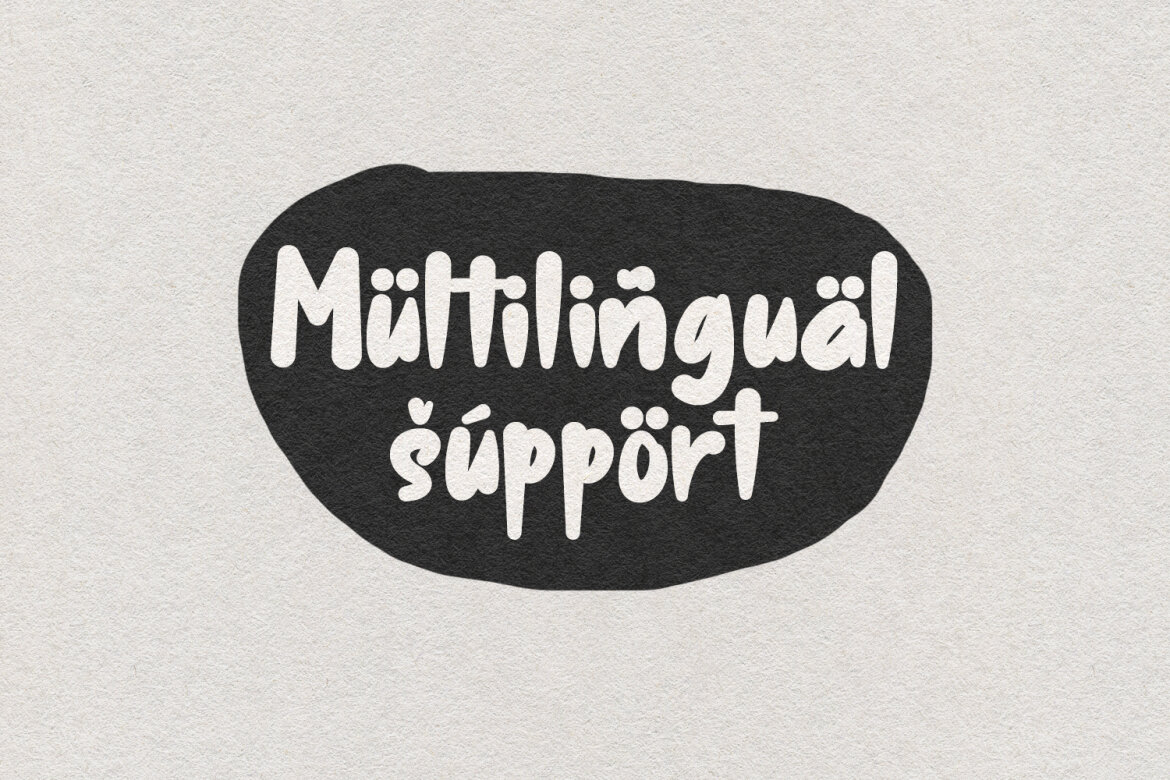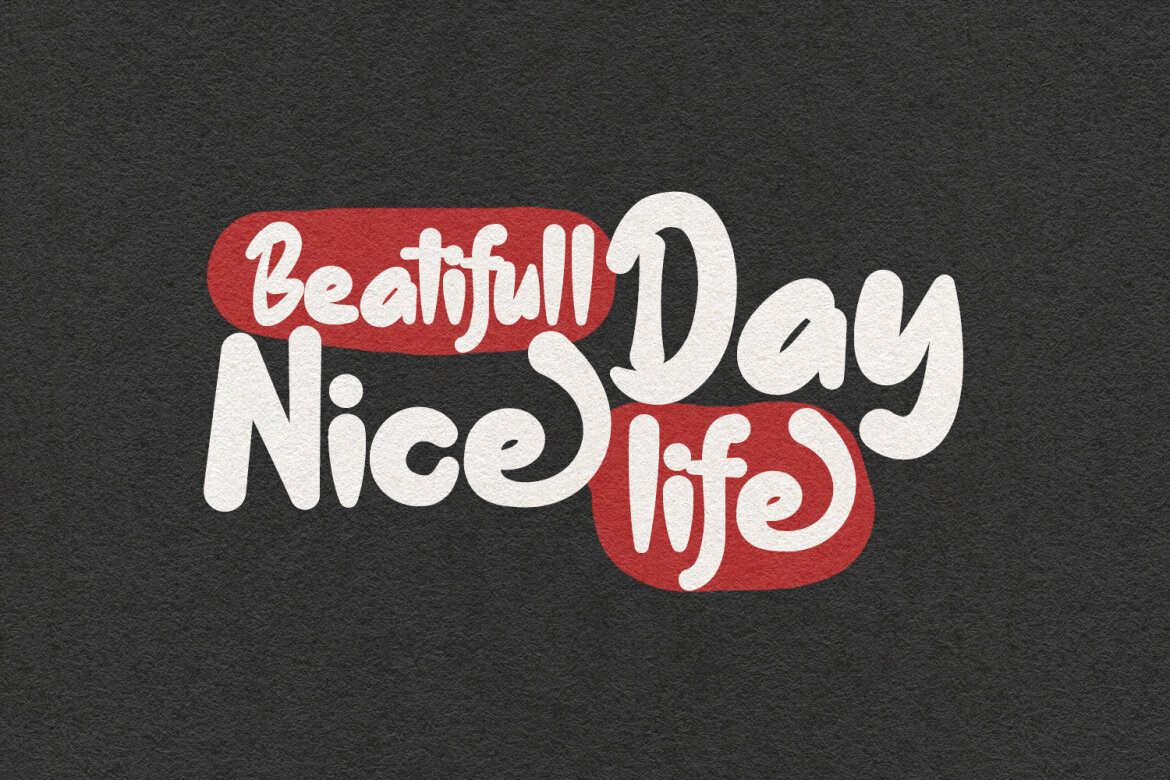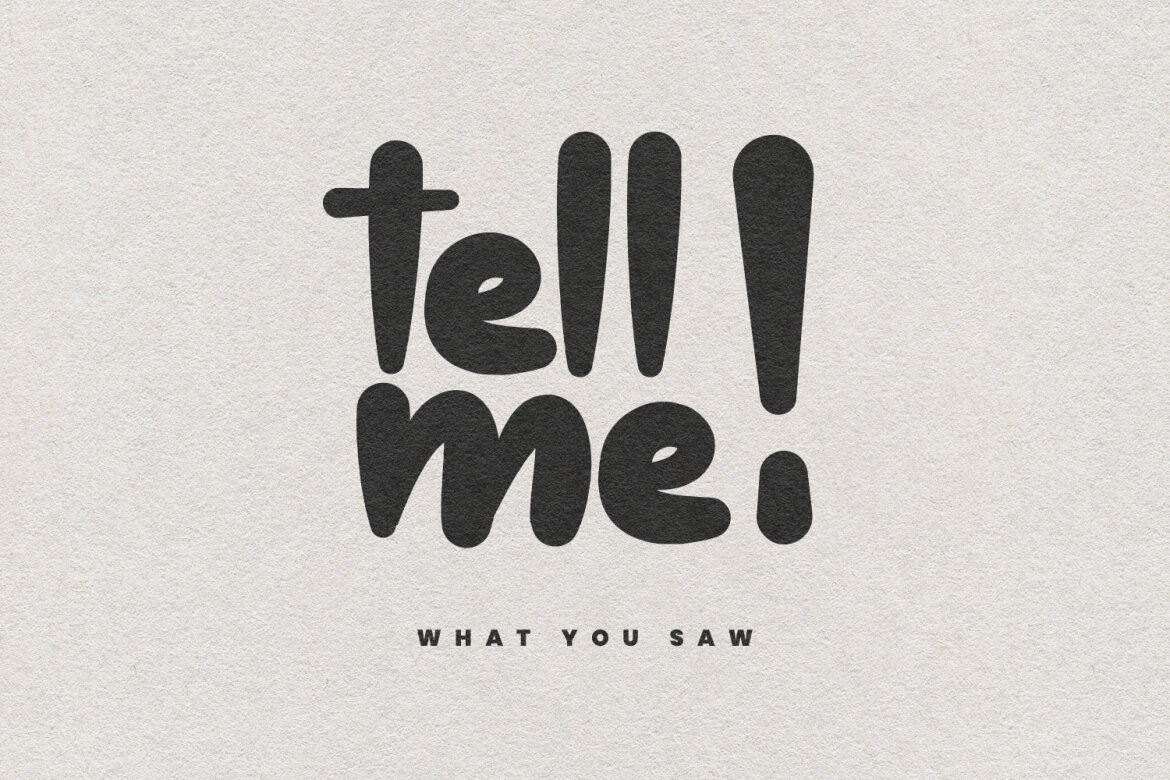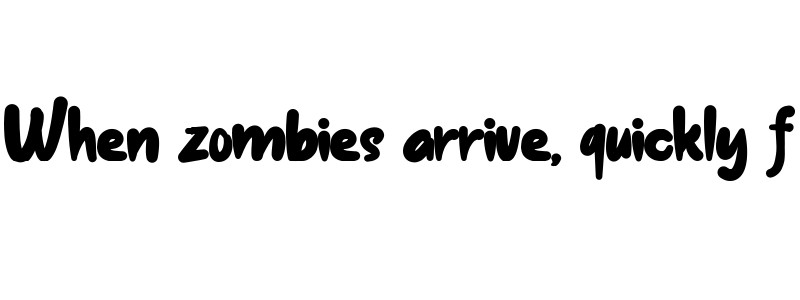
Lobs Shiwe FREE Display Font
Lobs Shiwe handmade brush display font, fun character with alternates and ligatures. To give you an extra creative work. Lobs Shiwe handmade brush display font support multilingual language.